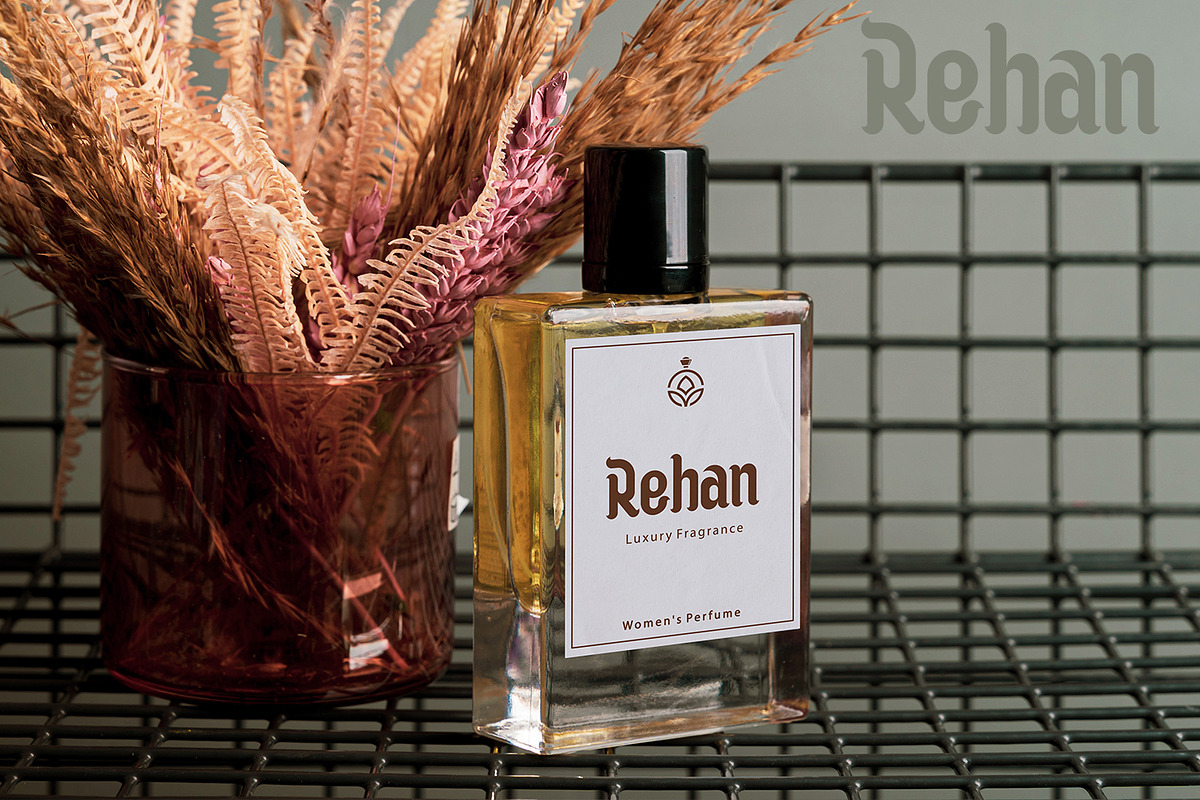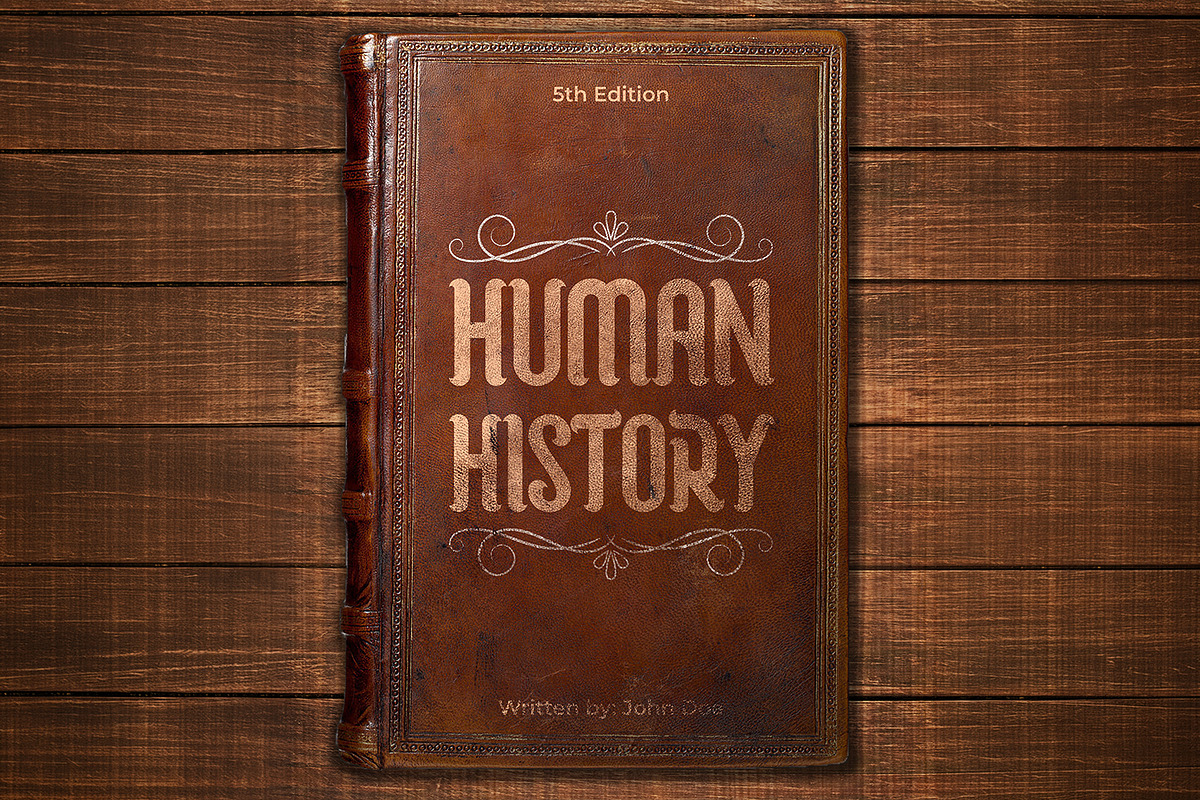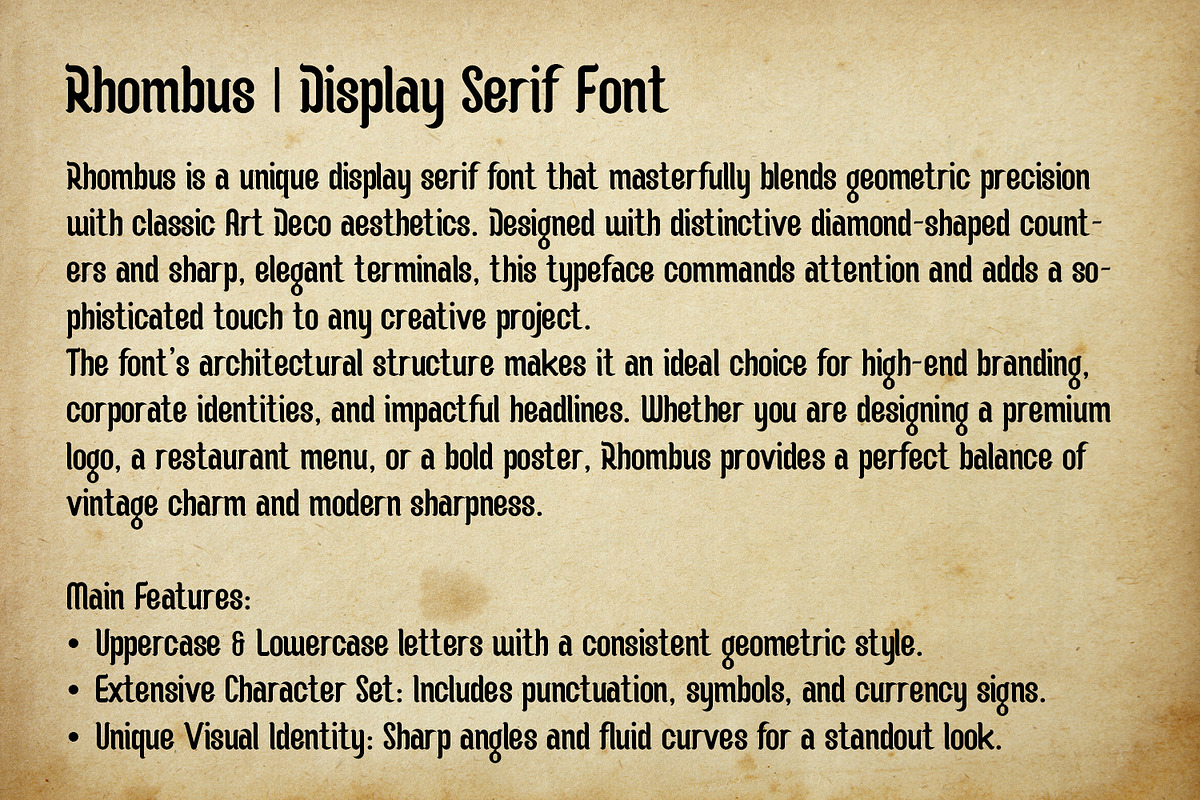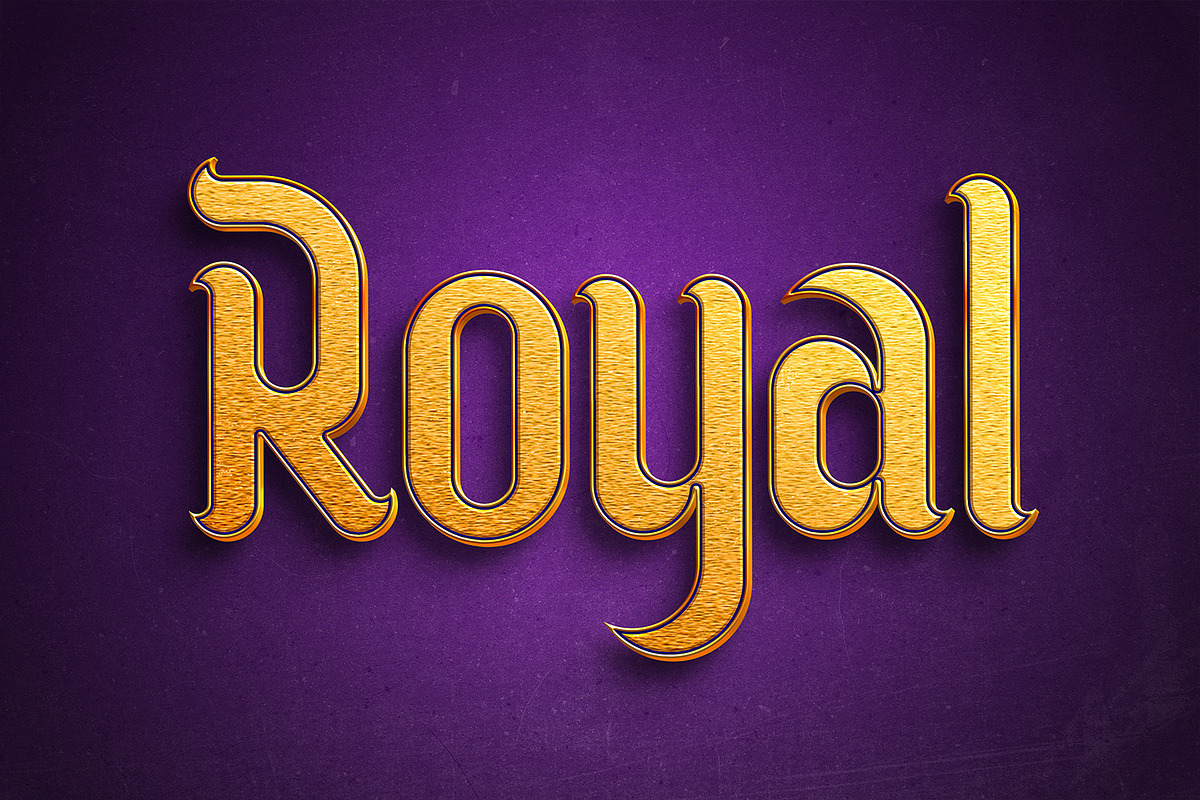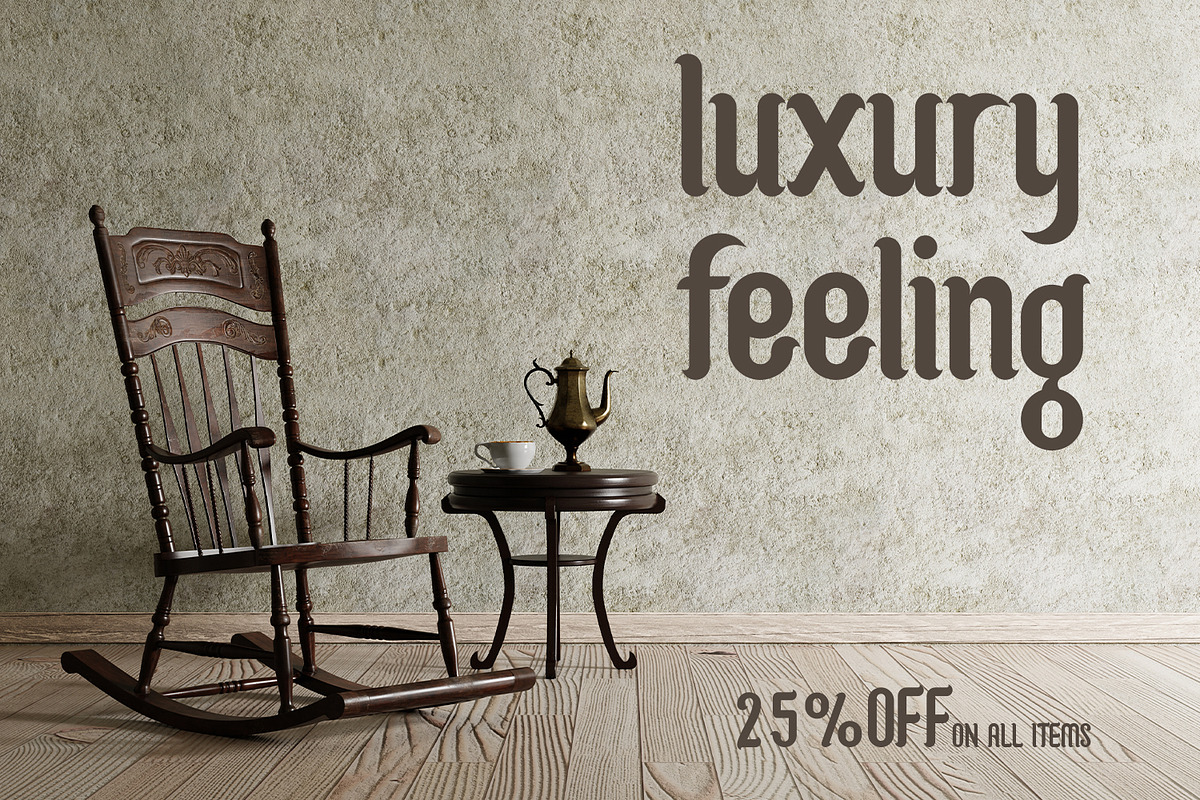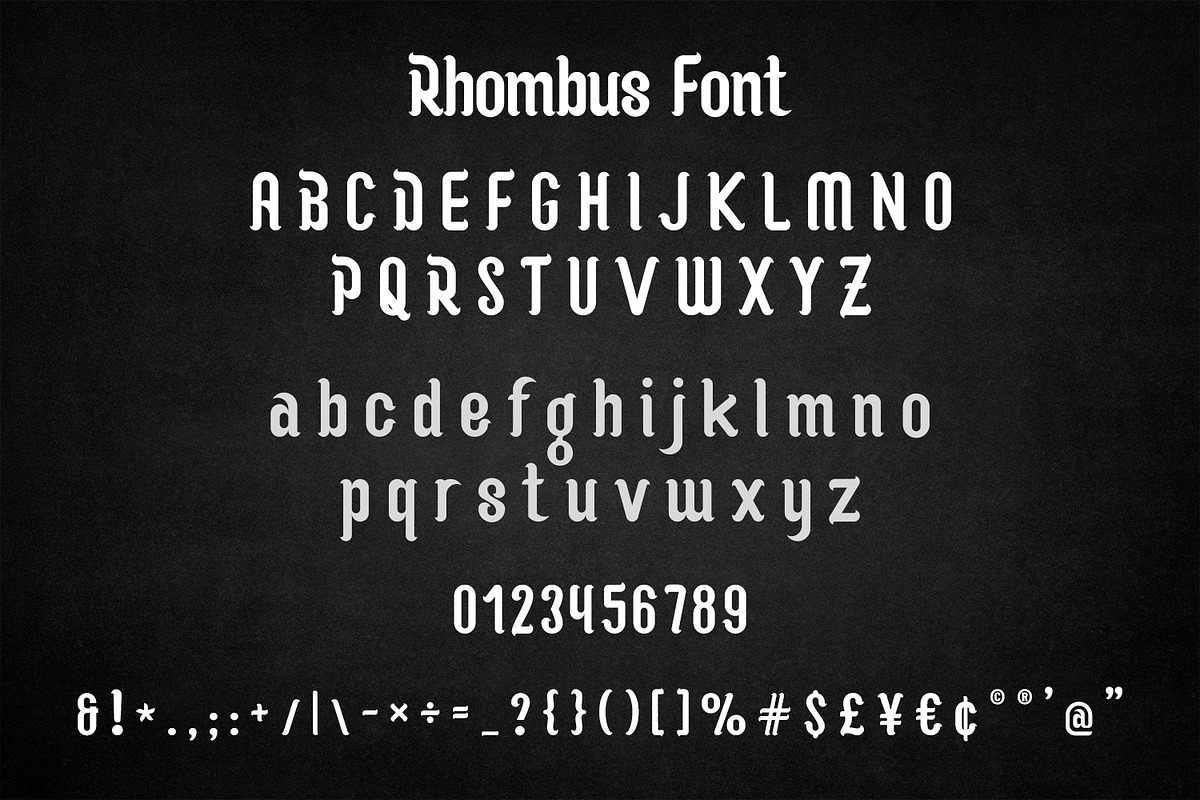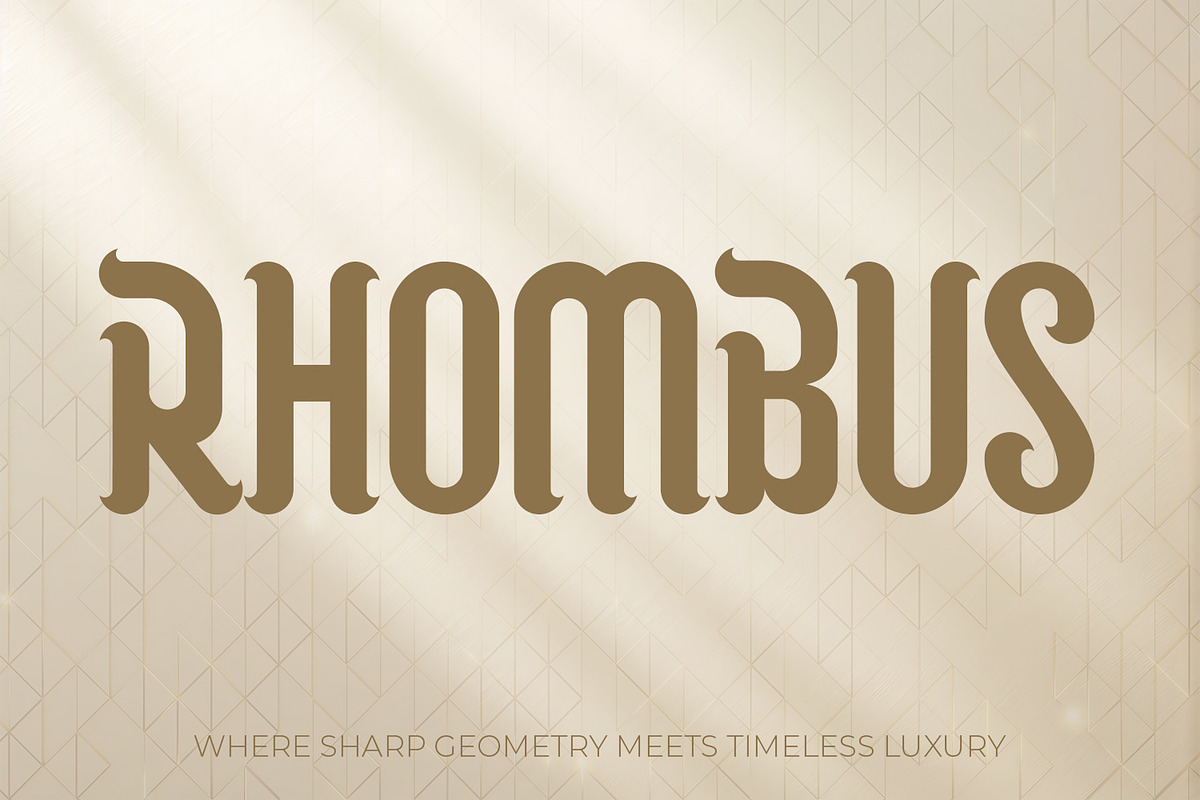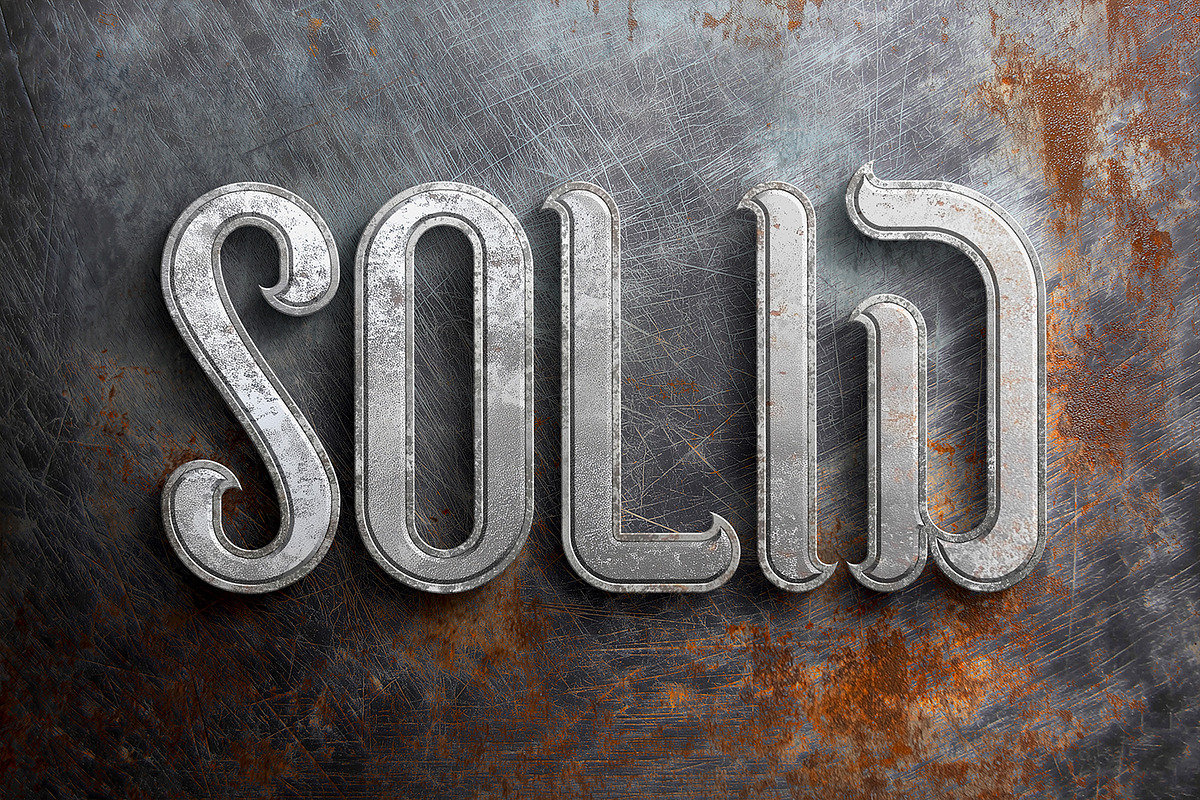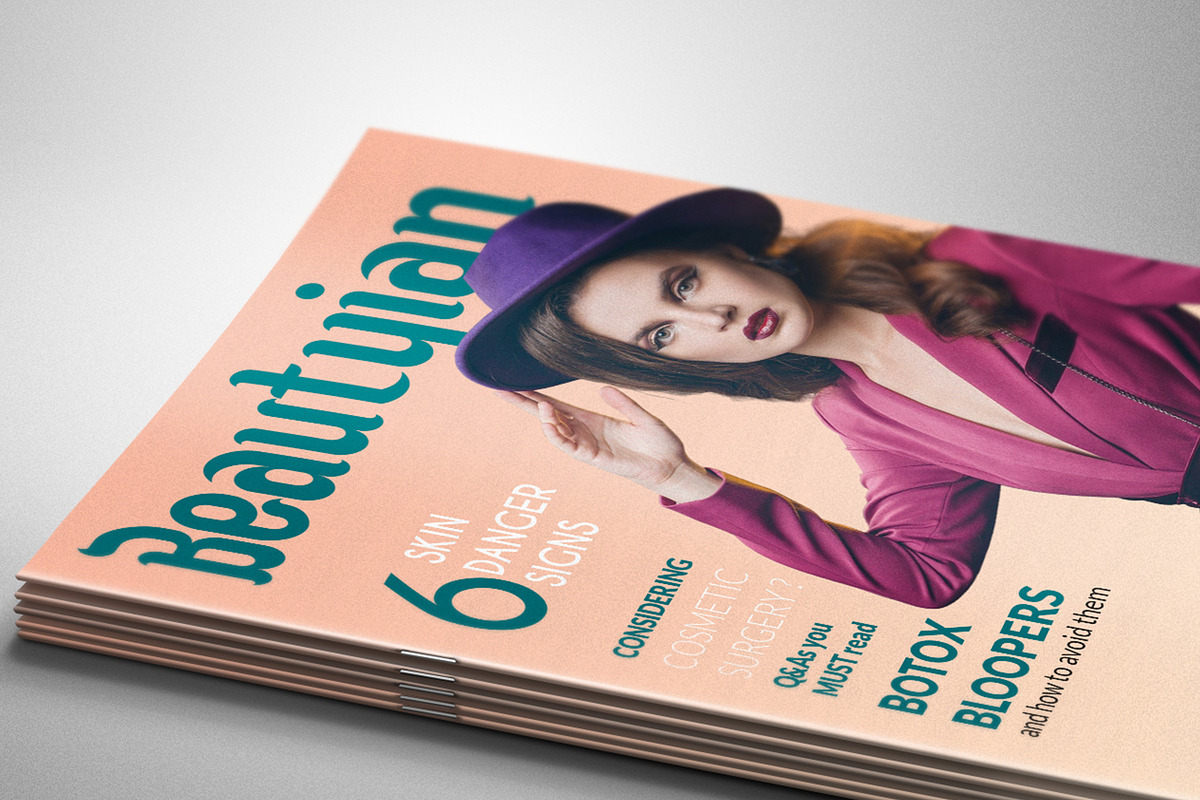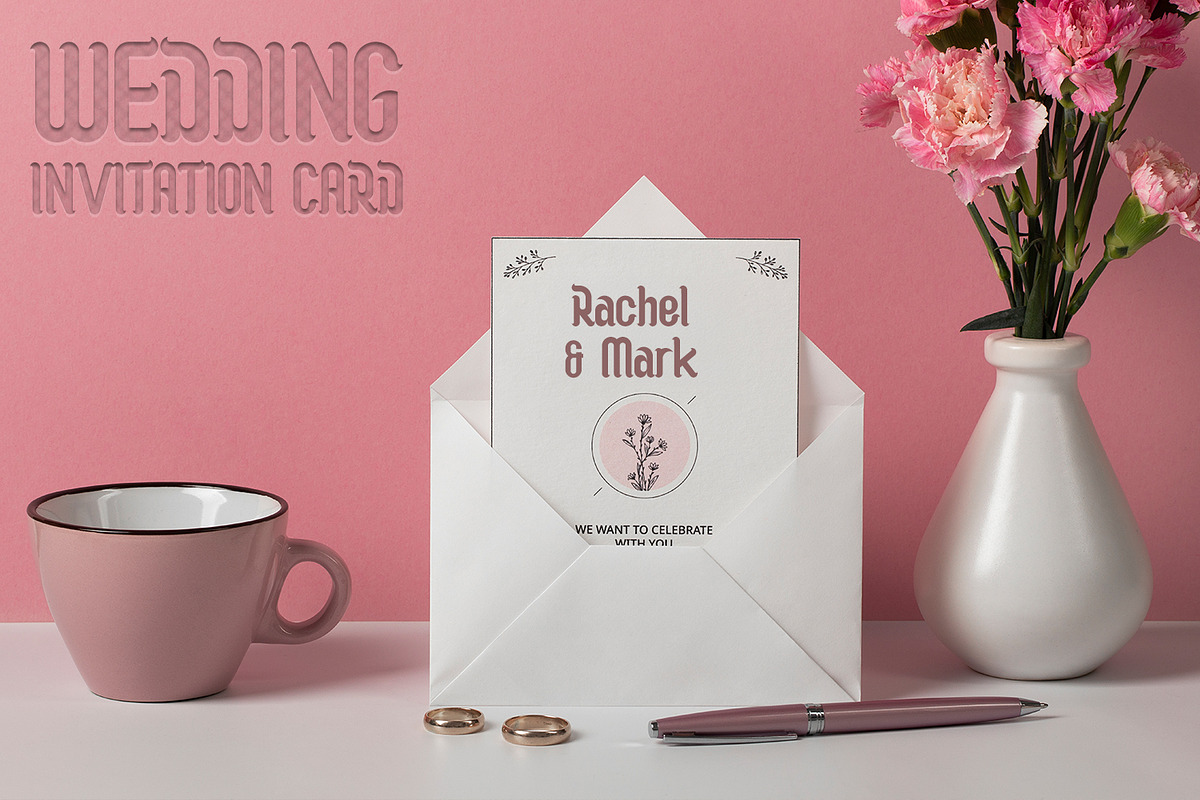
Rhombus - Luxury Geometric Serif
Elevate your creative projects with Rhombus, a sophisticated display serif font that masterfully blends sharp geometric precision with timeless Art Deco aesthetics. Defined by its unique diamond-shaped counters and sleek, architectural lines, Rhombus is designed for creators who want to make a bold, high-end statement.
This font is exceptionally versatile, making it a perfect choice for luxury wedding invitations, premium furniture branding, and modern interior design concepts. Whether you are crafting a logo for a boutique hotel, designing elegant packaging for glassware, or creating striking wall art, Rhombus provides a clean yet decorative touch that captures the essence of modern luxury.
Product Features:
- Complete Character Set: Full Uppercase & Lowercase letters.
- Numbers & Punctuations: Includes all essential digits and symbols.
- Special Characters: Custom-designed currency and mathematical signs for a cohesive look.